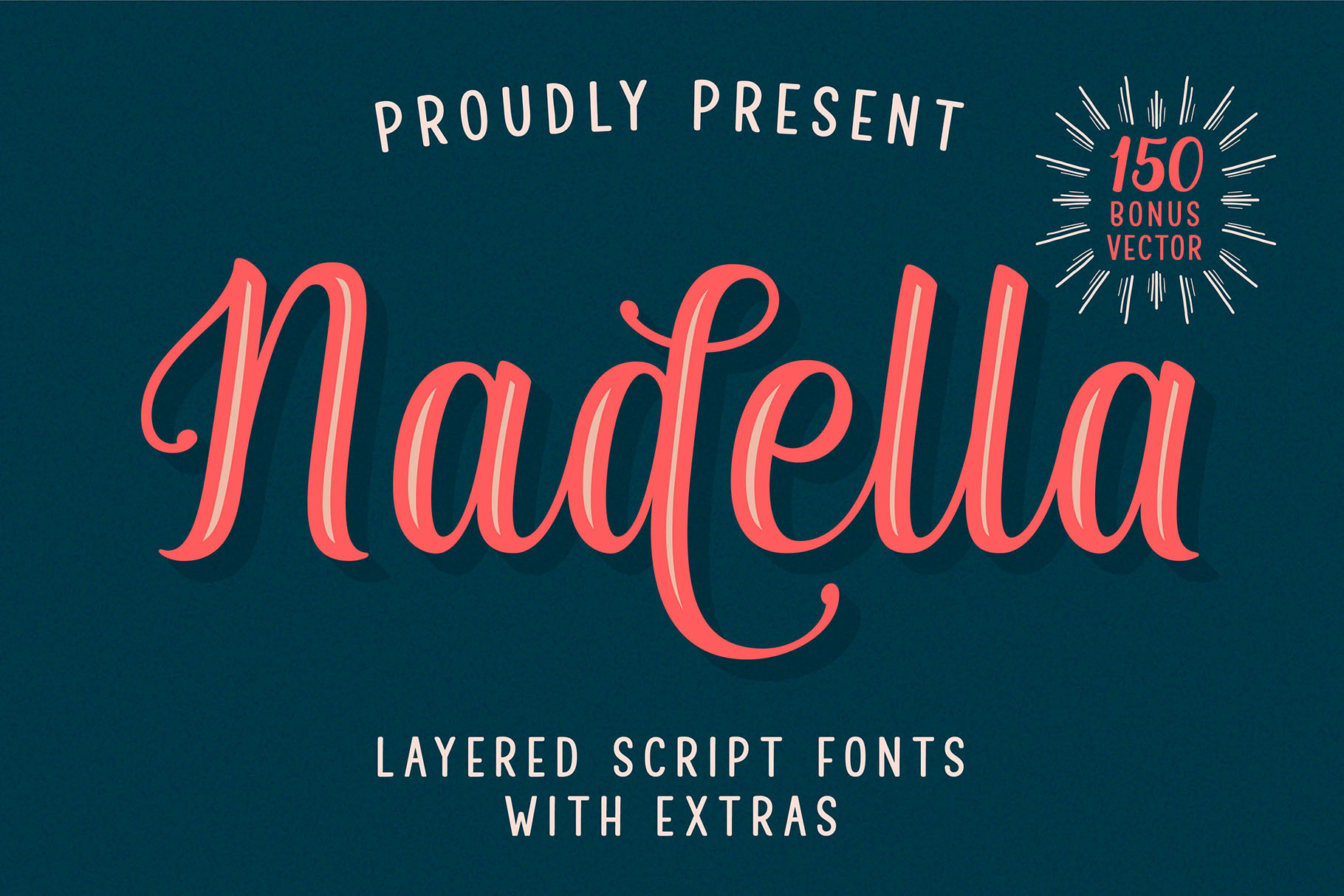
Nadella Layered Script Font
Nadella Script is beauty combinations of script layered and sans font . It has 7 font on script and 1 sans inside. Both combination are perfect for you to make design more detail. You can express the style on script font, you can add line, shadow, extrude, inline_1, inline_2, or inline_3.
Changing the color of the other layer as just easy as change standard color of the fonts but it’s make more detail. with 1 more sans font, and some extras. you no longer need to worry about how to make effect and ornament on the text. This font is suitable for young, passionate design, such as logo design, t-shirts, branding, and various other design purposes.